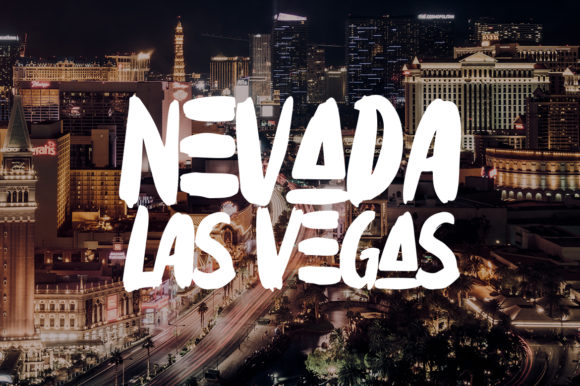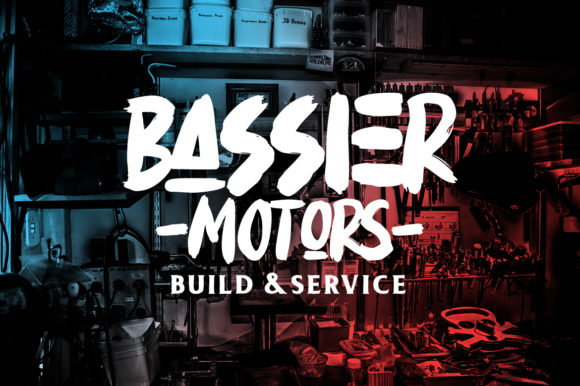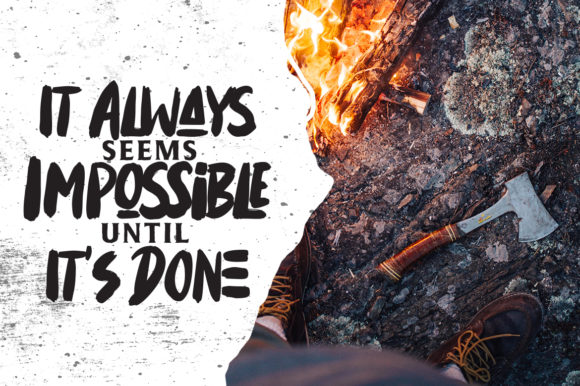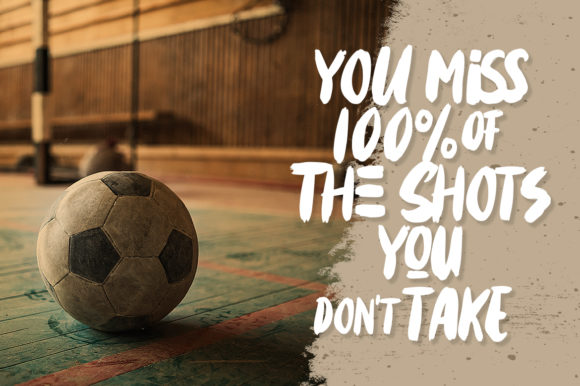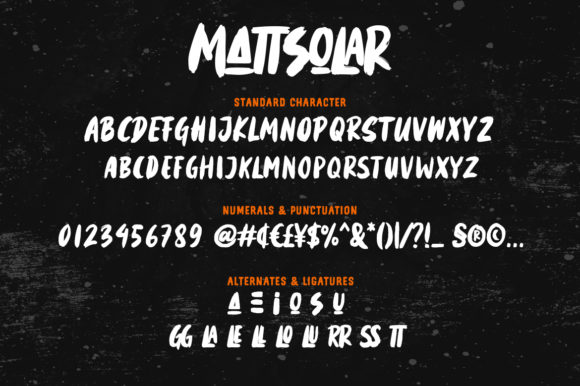
Introduction to Mattsolar Font
Mattsolar is a fun and bold display font with an organic feel.
It will add a tribal, urban and contemporary feel to any design project .
Key Features of Mattsolar Font